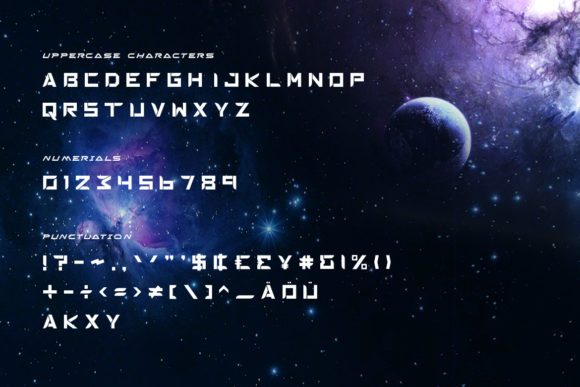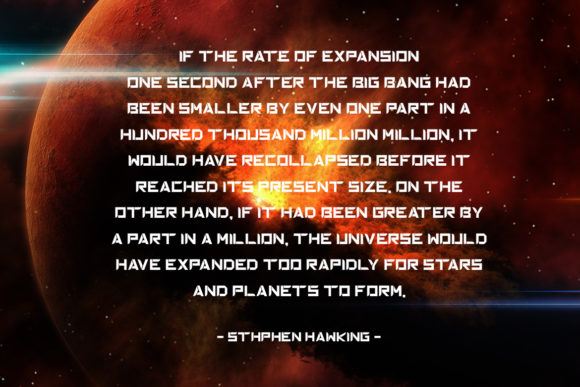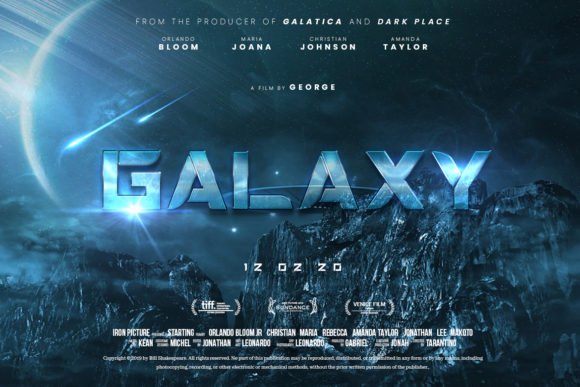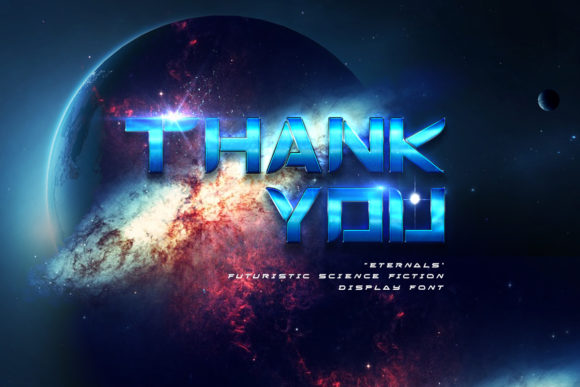
Eternals Font: Elevate Your Creativity with this Unique Display Font
Eternals is an incredibly unique display font that has been masterfully designed to become a true favorite among designers and crafters. With its exceptional style and versatility, this font has the potential to bring each of your creative ideas to the highest level. In this article, we’ll dive into the world of Eternals Font, exploring its features, benefits, and uses, as well as provide tips on how to make the most of this amazing font.
What Makes Eternals Font So Special?
Eternals Font is a one-of-a-kind display font that boasts a distinctive and elegant style. Its unique design makes it perfect for a wide range of creative projects, from branding and advertising to packaging and digital media. The font’s exceptional craftsmanship is evident in its precise lines, balanced proportions, and beautiful letterforms.
Key Features of Eternals Font
- Unique and elegant design: Eternals Font features a distinctive and sophisticated style that sets it apart from other fonts.
- Highly versatile: This font can be used for a wide range of creative projects, from display headlines to packaging and digital media.
- Exceptional legibility: Despite its elegant design, Eternals Font remains highly legible, making it perfect for use in a variety of contexts.
- Multi-language support: This font supports multiple languages, making it a great choice for global brands and projects.
Benefits of Using Eternals Font
So, why should you choose Eternals Font for your next creative project? Here are just a few benefits of using this amazing font:
- Add a touch of elegance: Eternals Font brings a level of sophistication and elegance to any project, making it perfect for high-end brands and luxury products.
- Stand out from the crowd: With its unique design, Eternals Font helps you stand out from the competition and grab attention.
- Enhance brand identity: This font can help you create a strong and consistent brand identity that resonates with your target audience.
- Boost creativity: Eternals Font is designed to inspire creativity and bring your ideas to life.
Using Eternals Font in Your Creative Projects
So, how can you make the most of Eternals Font in your creative projects? Here are a few tips:
- Use it as a display font: Eternals Font is perfect for display headlines, titles, and captions.
- Pair it with other fonts: Experiment with pairing Eternals Font with other fonts to create a unique and harmonious typography.
- Customize it: Don’t be afraid to experiment with different colors, textures, and effects to make Eternals Font truly yours.
Who Can Benefit from Eternals Font?
Eternals Font is perfect for a wide range of designers, crafters, and businesses, including:
- Graphic designers: Add a touch of elegance and sophistication to your designs with Eternals Font.
- Branding agencies: Create strong and consistent brand identities with this versatile font.
- Digital marketers: Use Eternals Font to create eye-catching ads, social media graphics, and email campaigns.
- Crafters and DIY enthusiasts: Add a professional touch to your handmade products and crafts with Eternals Font.
Eternals Font is an incredibly unique and versatile display font that has the potential to elevate your creative projects to new heights. With its elegant design, exceptional legibility, and multi-language support, this font is perfect for a wide range of applications. Whether you’re a designer, crafter, or business owner, Eternals Font is sure to become a true favorite in your creative arsenal.